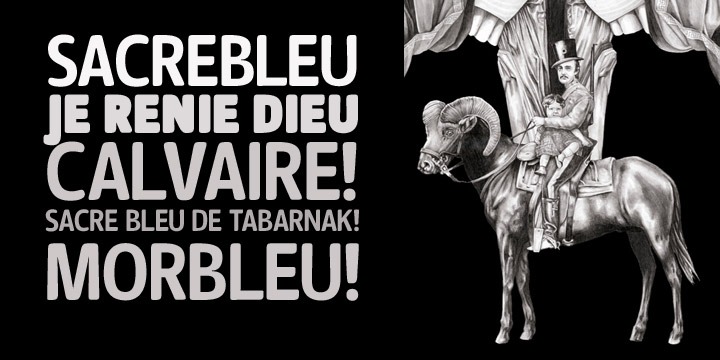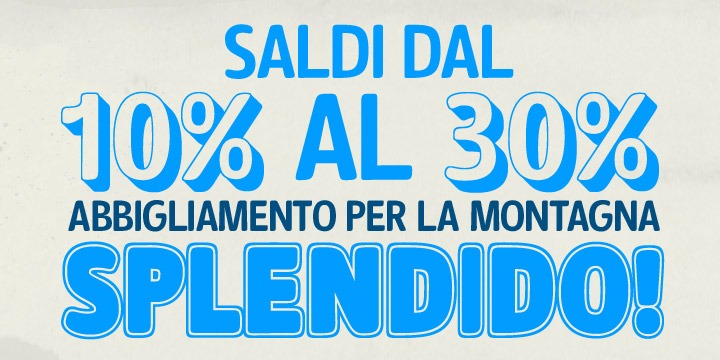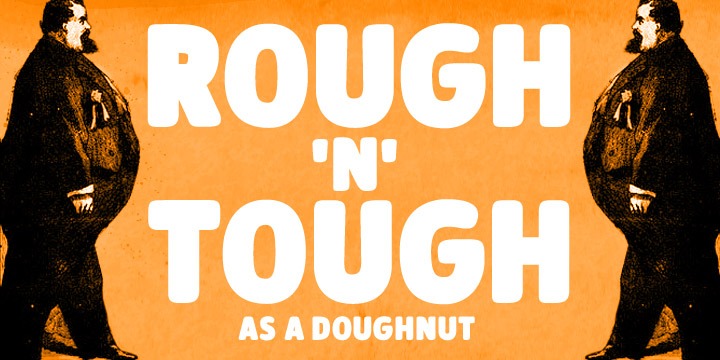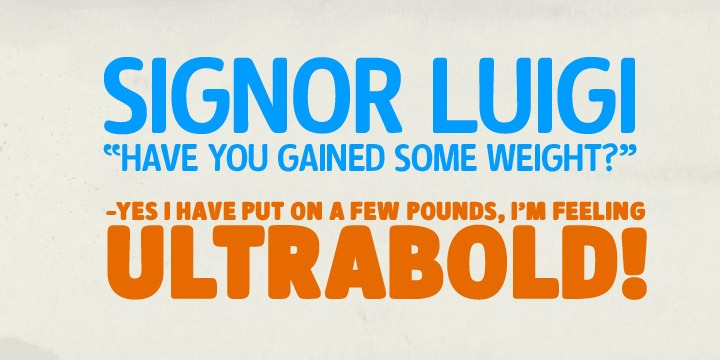
Signor
Signor is a soft and easygoing all caps font. Signor is very easy to use and is at its best when you need to make an impact but have a casual feeling.